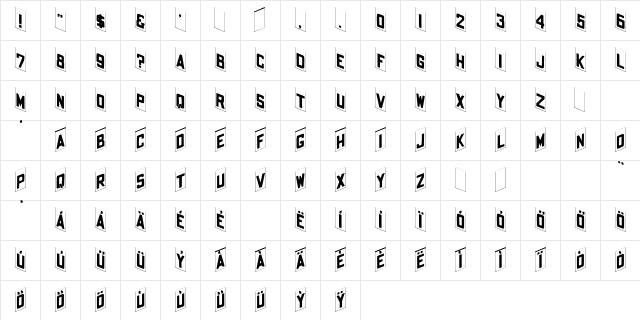
Complete H_Shohl Plain glyph index. Displaying only characters natively supported by H_Shohl Plain font.
H_Shohl is a composed and adaptable typeface that performs quietly and consistently across a wide range of design contexts.